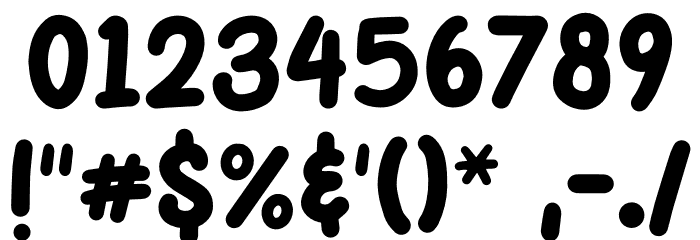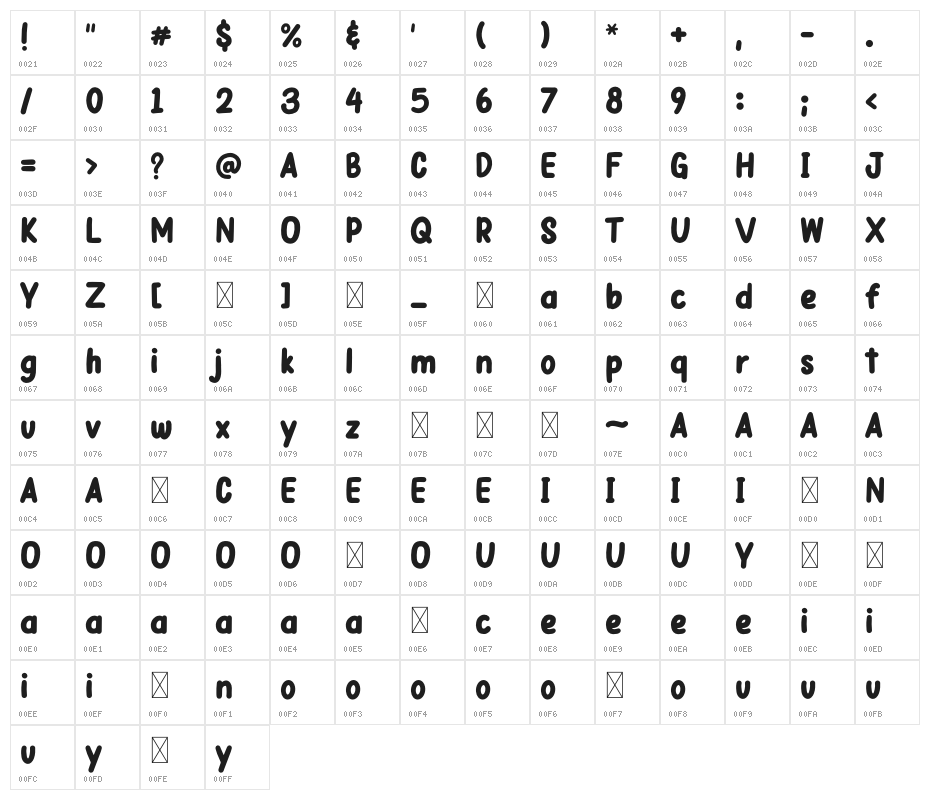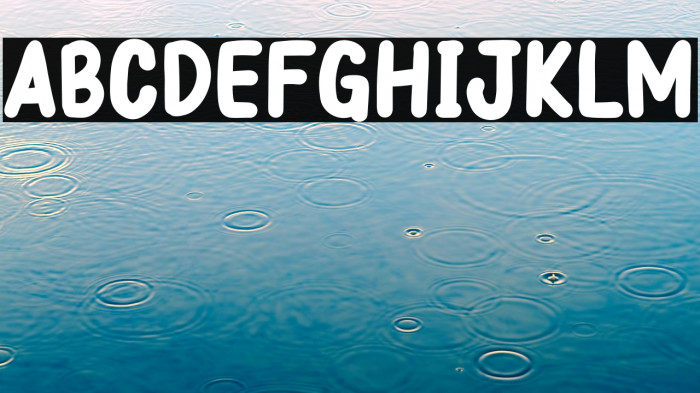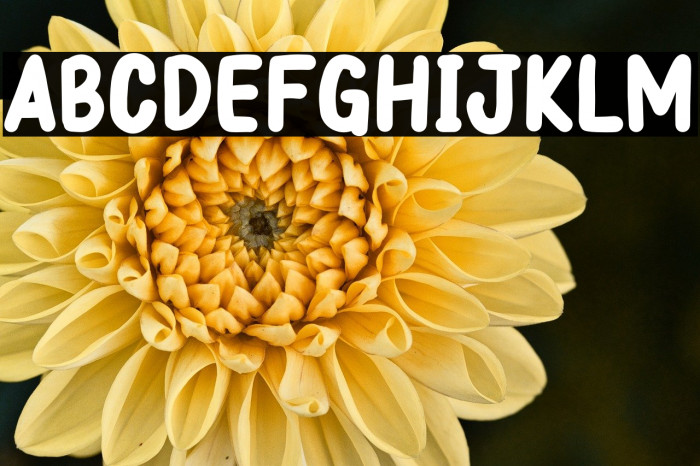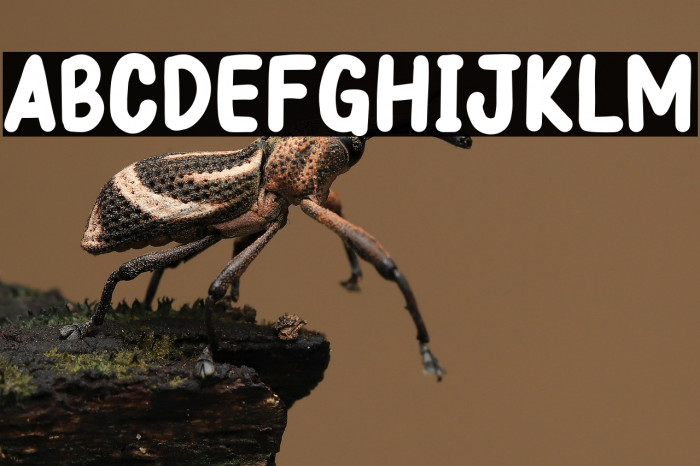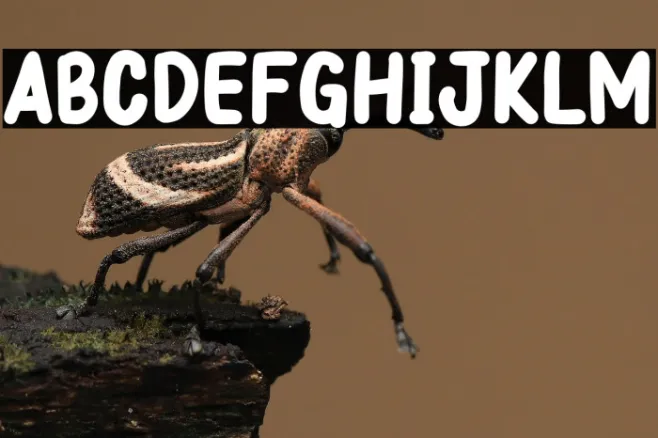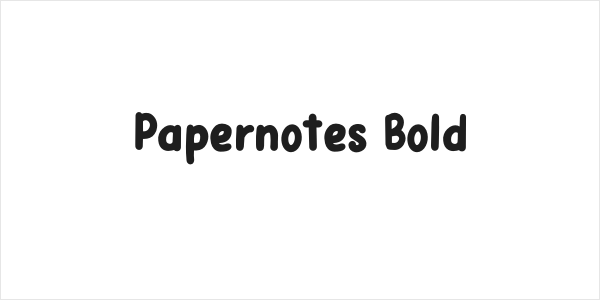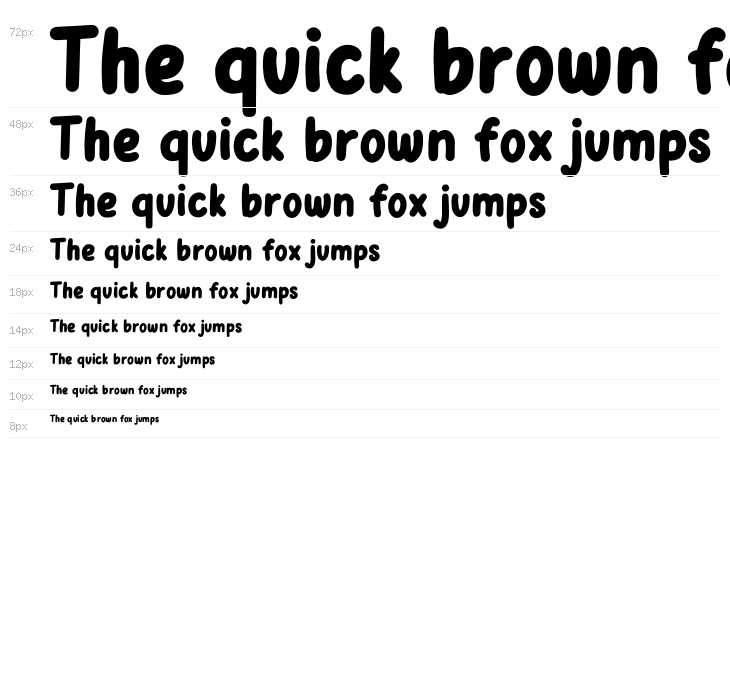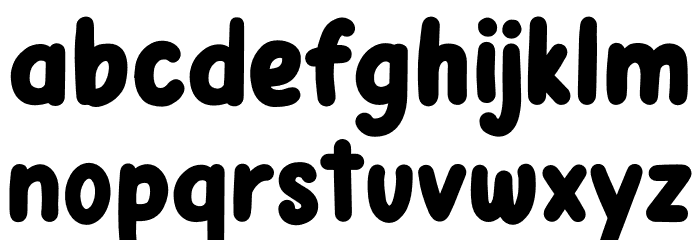
Papernotes Bold Font
Papernotes Bold Description
This font features a playful and bold design with rounded edges, giving it a friendly and approachable appearance. The characters are thick and uniform, providing a strong visual impact. The uppercase and lowercase letters maintain a consistent style, with slightly exaggerated curves that add to the whimsical feel. Numbers and special characters are equally bold, ensuring readability and coherence across different uses. The overall design is casual yet striking, making it suitable for projects that require a touch of personality and warmth.
| Proposed Projects | Ideal for children's books, playful branding, posters, and social media graphics. |